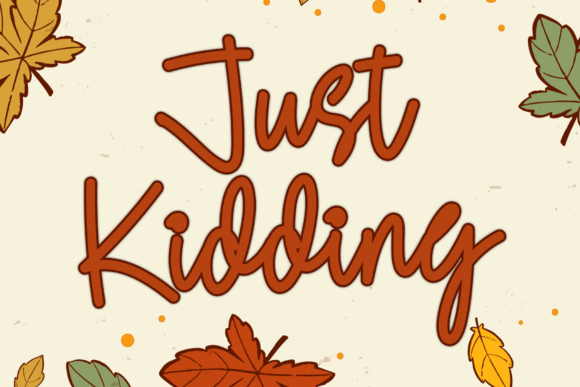
Behold "Just Kidding", the epitome of elegance, a script font that dances across digital screens, leaving a trail of visual delight. Its timeless calligraphy-inspired design, reminiscent of classic penmanship, brings a touch of sophistication to your digital creations. With "Just Kidding", your words will resonate with an air of sophistication and charm, capturing the attention of even the most discerning eyes.
Imagine your designs adorned with the graceful strokes of "Just Kidding", as if written by a master calligrapher. Witness the seamless fusion of tradition and modernity as this font elevates your projects with a timeless aesthetic. Whether you're crafting elegant invitations, captivating social media posts, or designing eye-catching logos, "Just Kidding" is the perfect choice to add a touch of refinement and visual appeal.
Step into a world of limitless creativity, where "Just Kidding" becomes your trusted companion, guiding you through the uncharted territories of design. Experiment with endless possibilities, letting your imagination soar as you create designs that exude both elegance and playfulness. From whimsical illustrations to heartfelt love letters, "Just Kidding" effortlessly adapts to your vision, becoming an extension of your artistic expression.
Join the ranks of discerning designers who have embraced the beauty of "Just Kidding", the font that captivates audiences with its timeless charm and modern sensibility. Discover the joy of creating designs that resonate with elegance, leaving an indelible mark on the hearts and minds of your audience. "Just Kidding" is not just a font; it's an invitation to embark on a creative journey where your imagination knows no bounds.